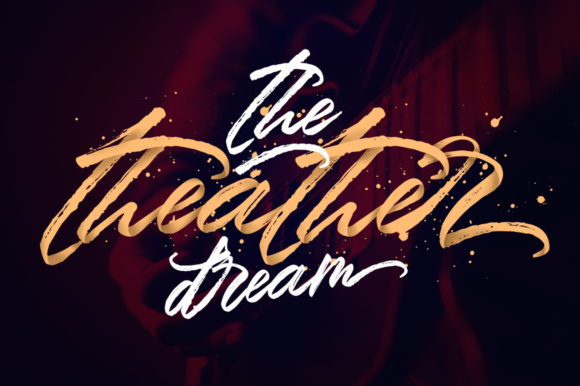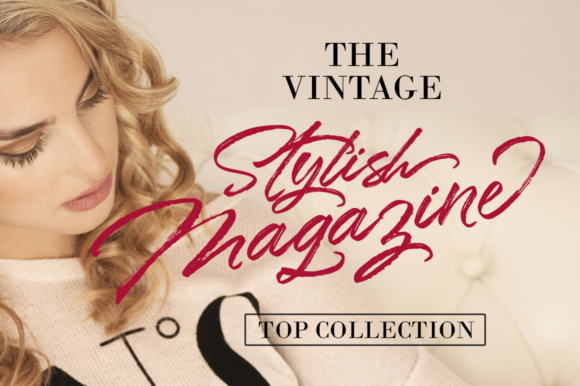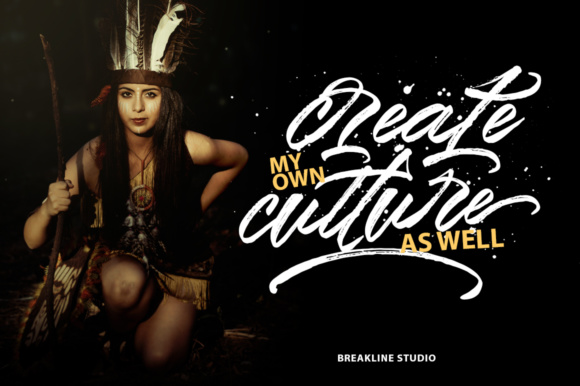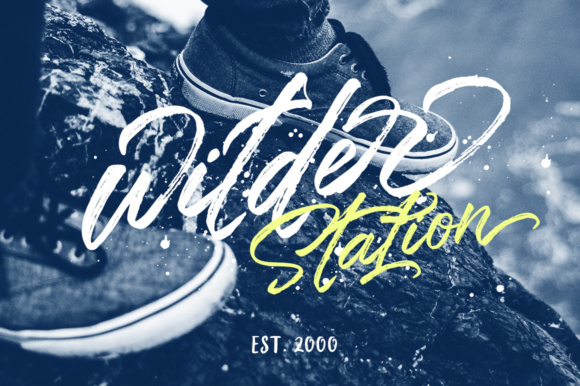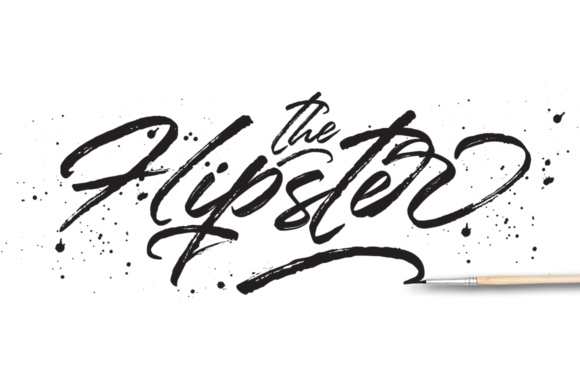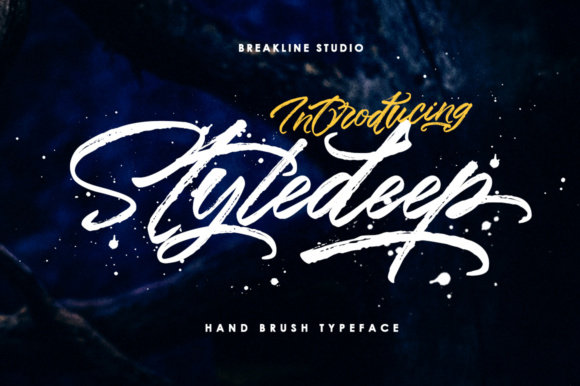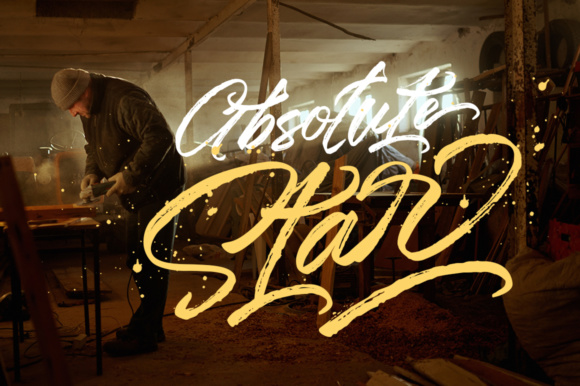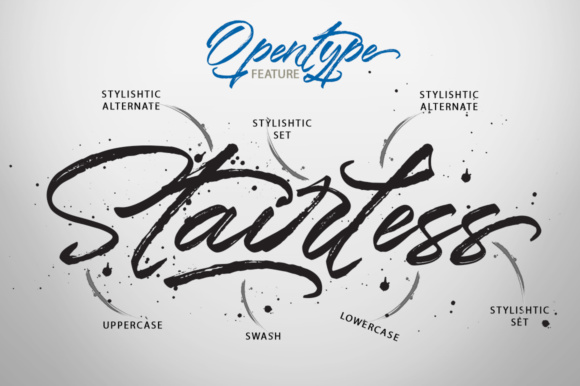
The Styledeep is a handwritten brush font. It was made with a dry scratch style but still looks cool and is suitable for use in a variety of promotional, business, and other design needs.